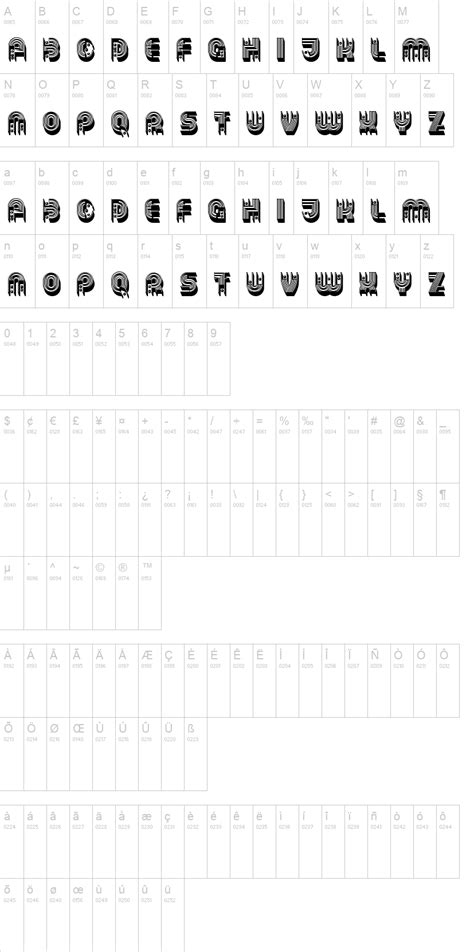
Web explore jumble designed by laura worthington at adobe fonts. A decorative typeface with 1 style, available from. Web jumbalo is a fun loving family suitable for a variety of purposes. Web browse our collection of fonts similar to jumble: This all caps display font is characterized by its loose, rounded. Unlock creative possibilities with our selection of free jumbled fonts. Jumble font is a font / typeface offered for free. Please note that if the license offered here. Web download jumble font font for free.
Jumble font is a font / typeface offered for free. Web jumbalo is a fun loving family suitable for a variety of purposes. A decorative typeface with 1 style, available from. This all caps display font is characterized by its loose, rounded. Jumble font is a font / typeface offered for free. Please note that if the license offered here. Web download jumble font font for free. Unlock creative possibilities with our selection of free jumbled fonts. Web browse our collection of fonts similar to jumble: Web explore jumble designed by laura worthington at adobe fonts.